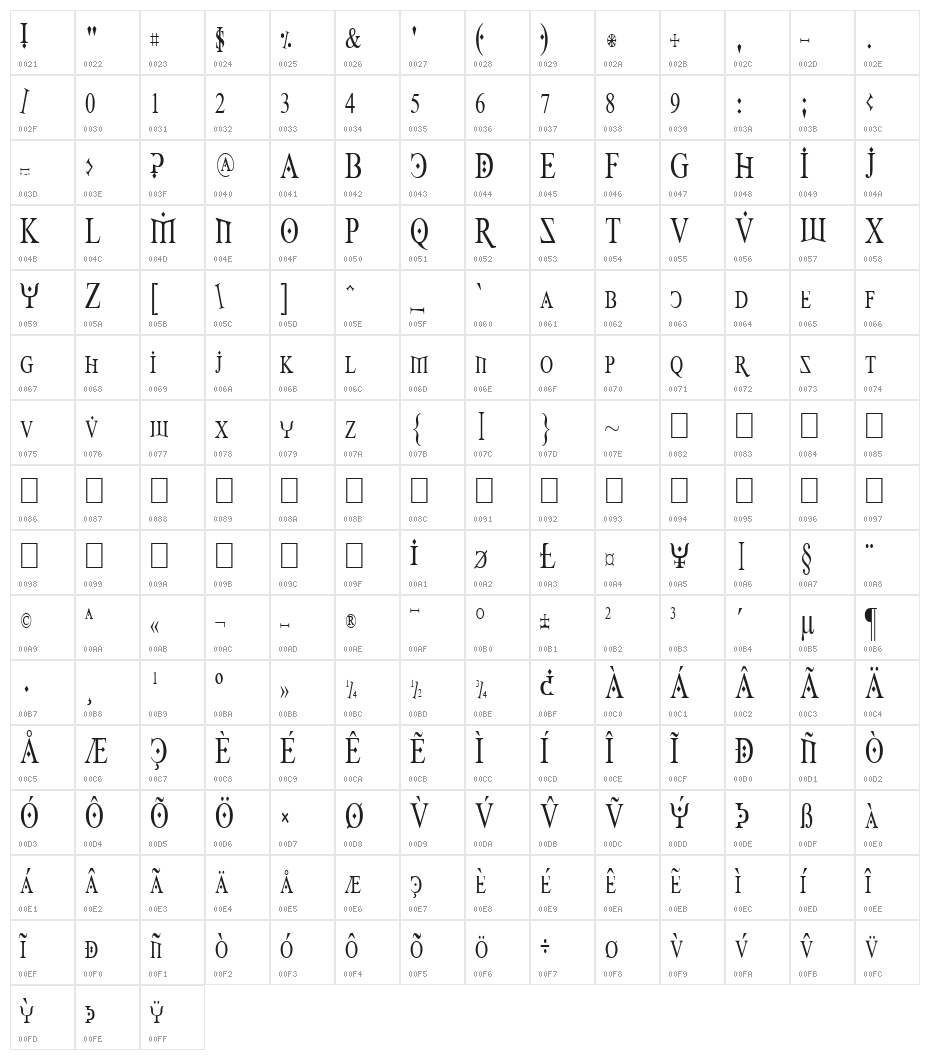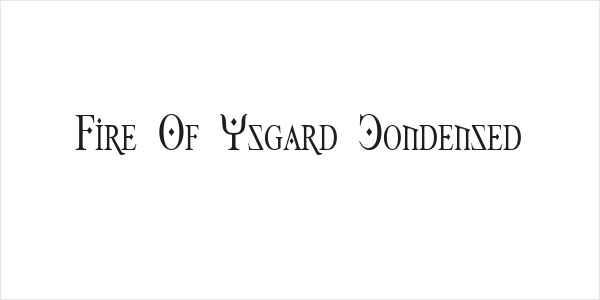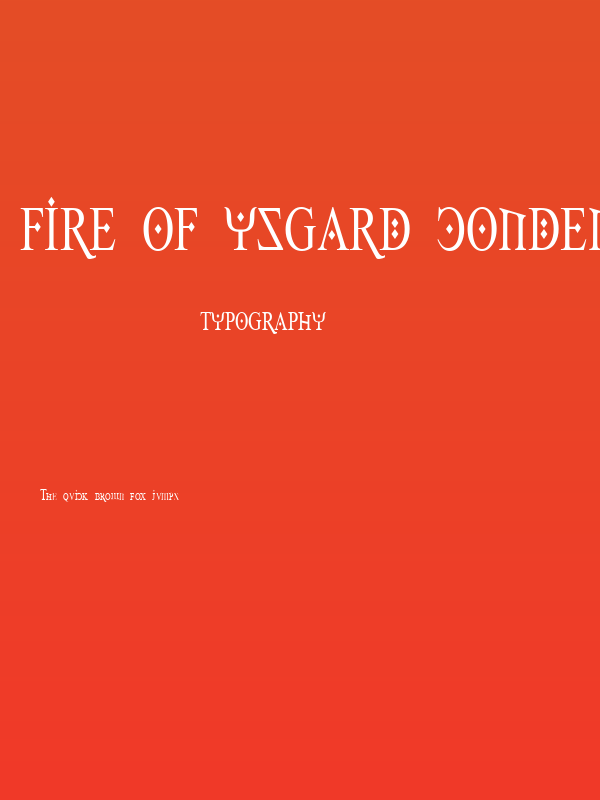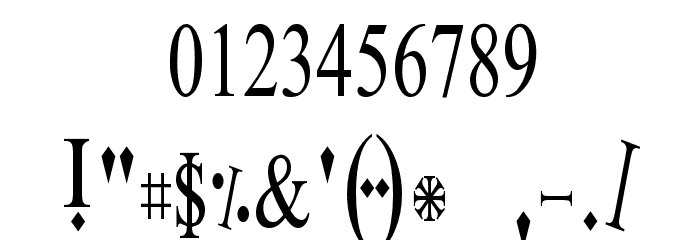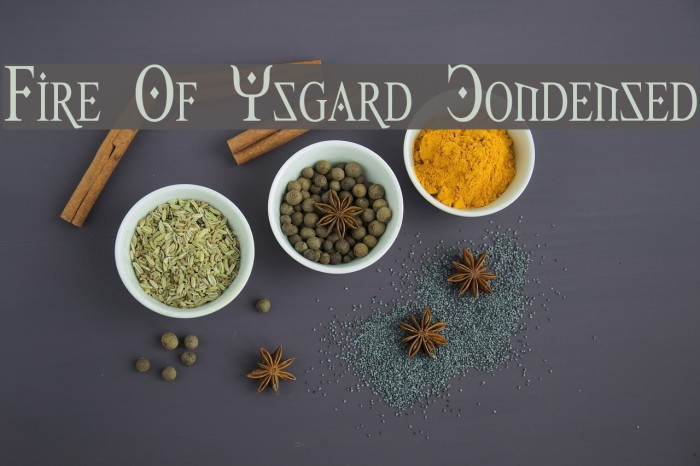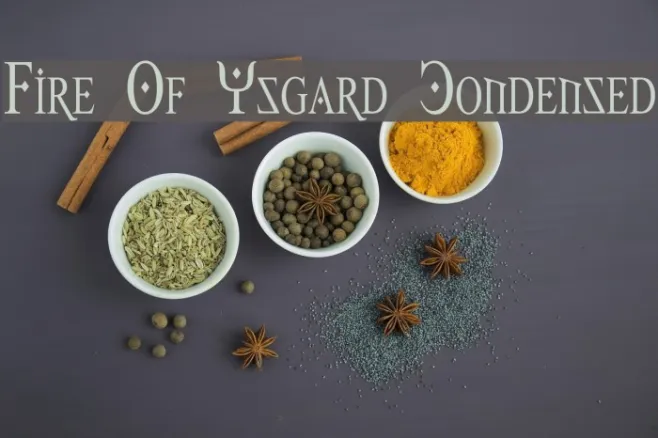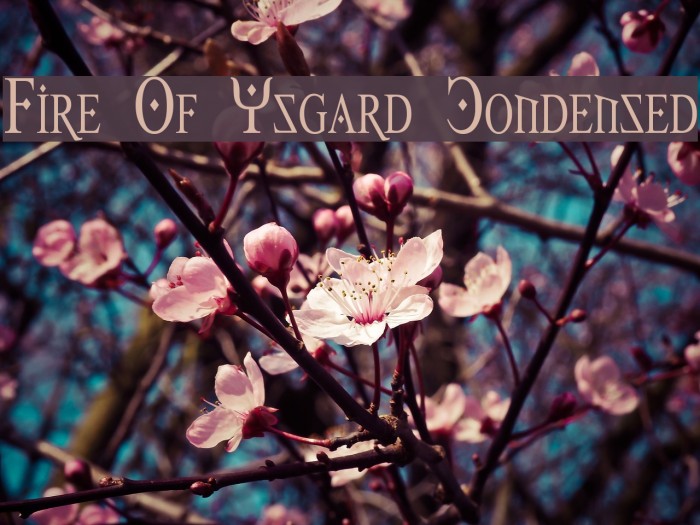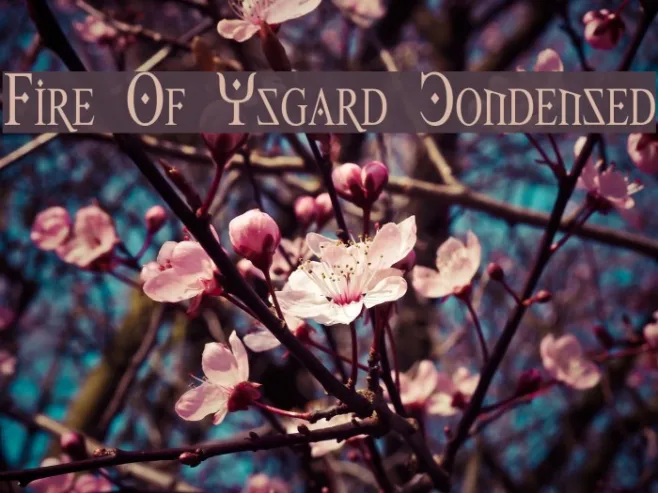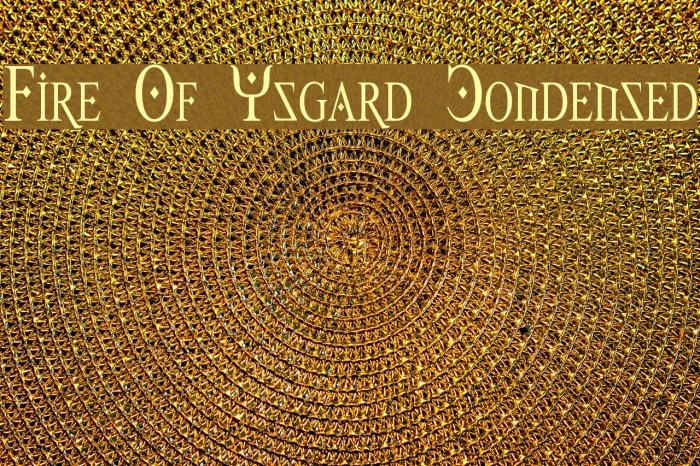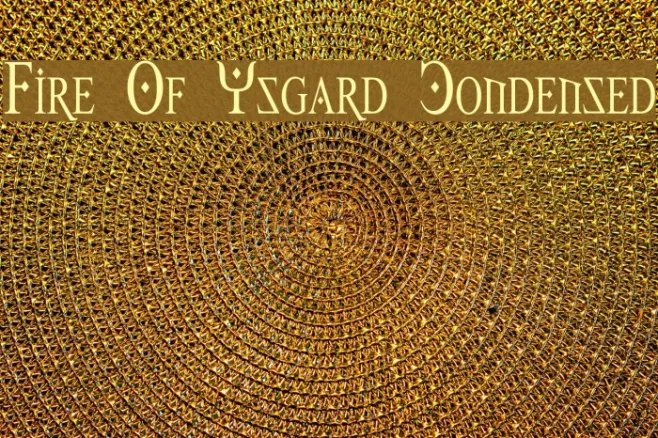
Fire Of Ysgard Condensed Font
Fire Of Ysgard Condensed Description
This font presents a unique blend of historical and modern elements, characterized by its distinct angular shapes and geometric forms. The uppercase letters feature sharp serifs and a condensed structure, giving it a bold and authoritative appearance. The lowercase letters maintain a similar style, ensuring consistency throughout. The numerals are clear and legible, with a slightly narrower width that complements the overall condensed nature of the font. Special characters are creatively designed, adding a decorative touch that enhances the font's visual appeal. This font's high contrast in stroke thickness adds to its striking presence, making it ideal for impactful designs.
| Proposed Projects | Ideal for fantasy-themed projects, book covers, posters, and branding that requires a strong, distinctive typeface. |